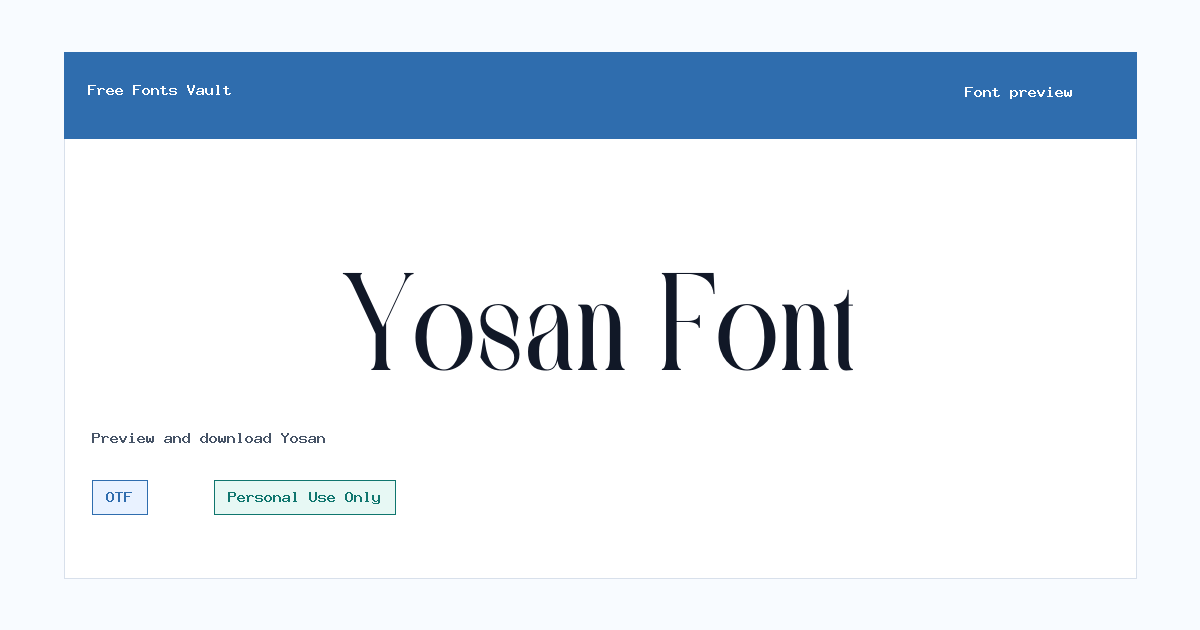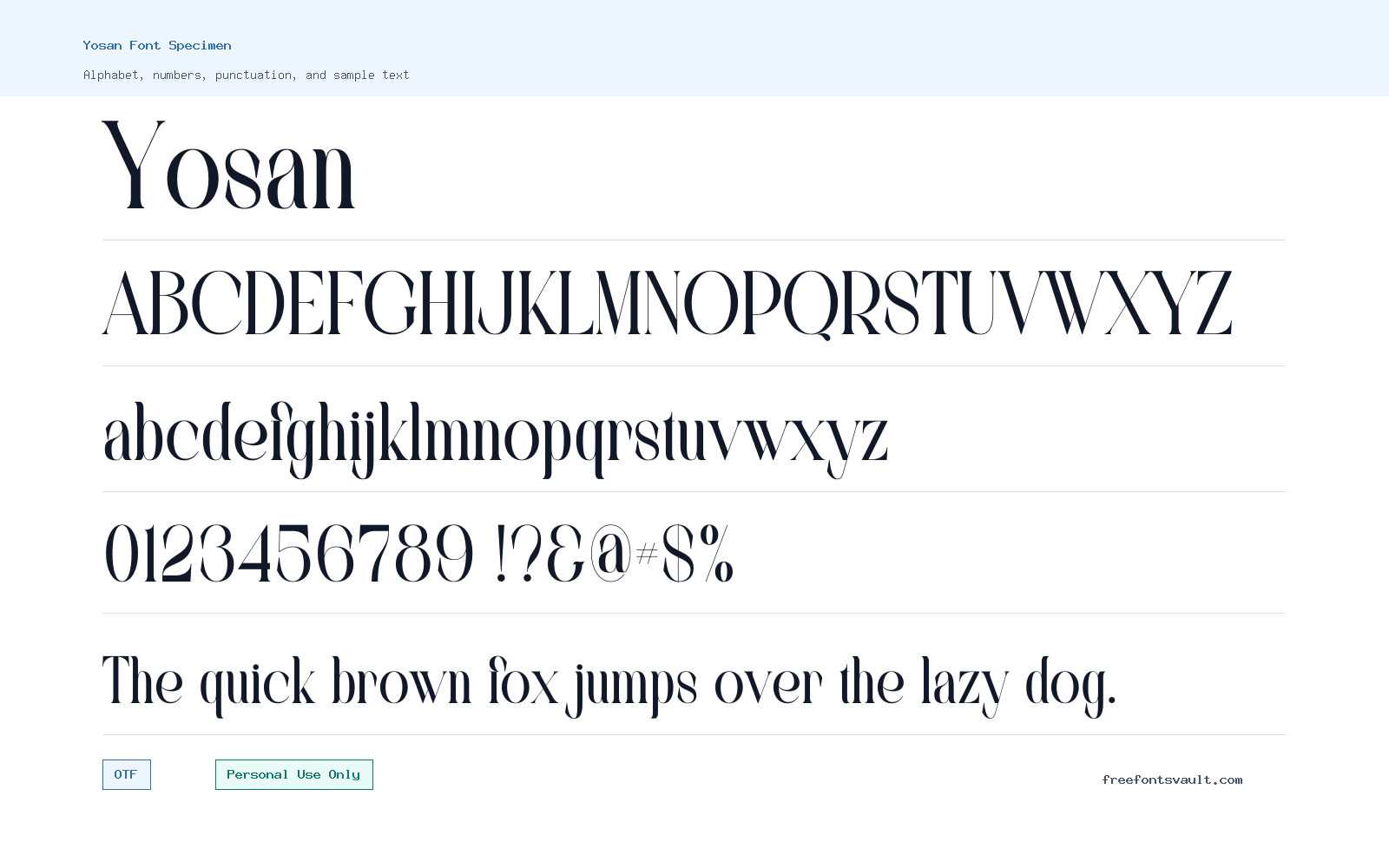
Yosan
Yosan is a serif font by Biham Santoso, offered in an OTF regular style for personal-use design work. It is a good option to test when you need a display serif for titles, branding drafts, posters, or elegant web mockups.
About Yosan Font
Yosan works best as a display-focused serif rather than a long-reading text face. Use it where the font can be noticed: a logo concept, a boutique-style headline, a poster title, a social graphic, a packaging mockup, or a short editorial heading. Because the available style is a regular weight, it is easiest to judge in the preview with short words, names, and title-length phrases. Try your actual project text before downloading so you can see how the spacing, capitals, punctuation, and letter shapes behave together.
For logo work, Yosan can be useful during the early concept stage, especially for name-based marks, fashion-style layouts, wedding stationery drafts, beauty branding concepts, and refined poster typography. Keep the words short and give the letters enough space to breathe. If the font feels too detailed at a small size, reserve it for the main wordmark or headline and use a simpler companion typeface for supporting copy. In web mockups, test it in hero headings, section titles, and callout text rather than paragraph blocks. A clean sans serif or a quieter text serif can help balance Yosan when you need menus, captions, product details, or longer descriptions.
- Serif display style suited to short headings, names, titles, and visual identity mockups.
- Best tested at larger sizes where spacing, capitals, and letter details are easier to judge.
- Logo concepts and wordmark drafts
- Wedding or invitation mockups
- Fashion, beauty, boutique, or editorial-style headings
- Website hero headings and landing page mockups
- Social media quote graphics or title cards
- Packaging concept presentations
- Personal design practice and mood boards
Start by previewing Yosan with the exact words you plan to use. Check uppercase letters, mixed-case names, punctuation, and spacing in short phrases. For posters and logo drafts, increase the size and add generous margins so the serif details do not feel cramped. For websites and brand mockups, pair it with a simple sans serif for body text, navigation, buttons, and small captions. Avoid using it for long paragraphs unless testing shows it remains comfortable to read at your chosen size.
Who designed Yosan?
What is Yosan best used for?
Yosan is best tested in short, visible text such as logo drafts, headings, poster titles, invitations, packaging concepts, and web hero sections.
Is Yosan good for body text?
It is better treated as a display serif for short text. For long reading, pair it with a simpler font and keep Yosan for headings or accents.
What should I pair with Yosan?
A clean sans serif is a safe pairing for body copy, menus, labels, and captions. If you prefer a classic look, use a restrained text serif for paragraphs and keep Yosan for the main title.